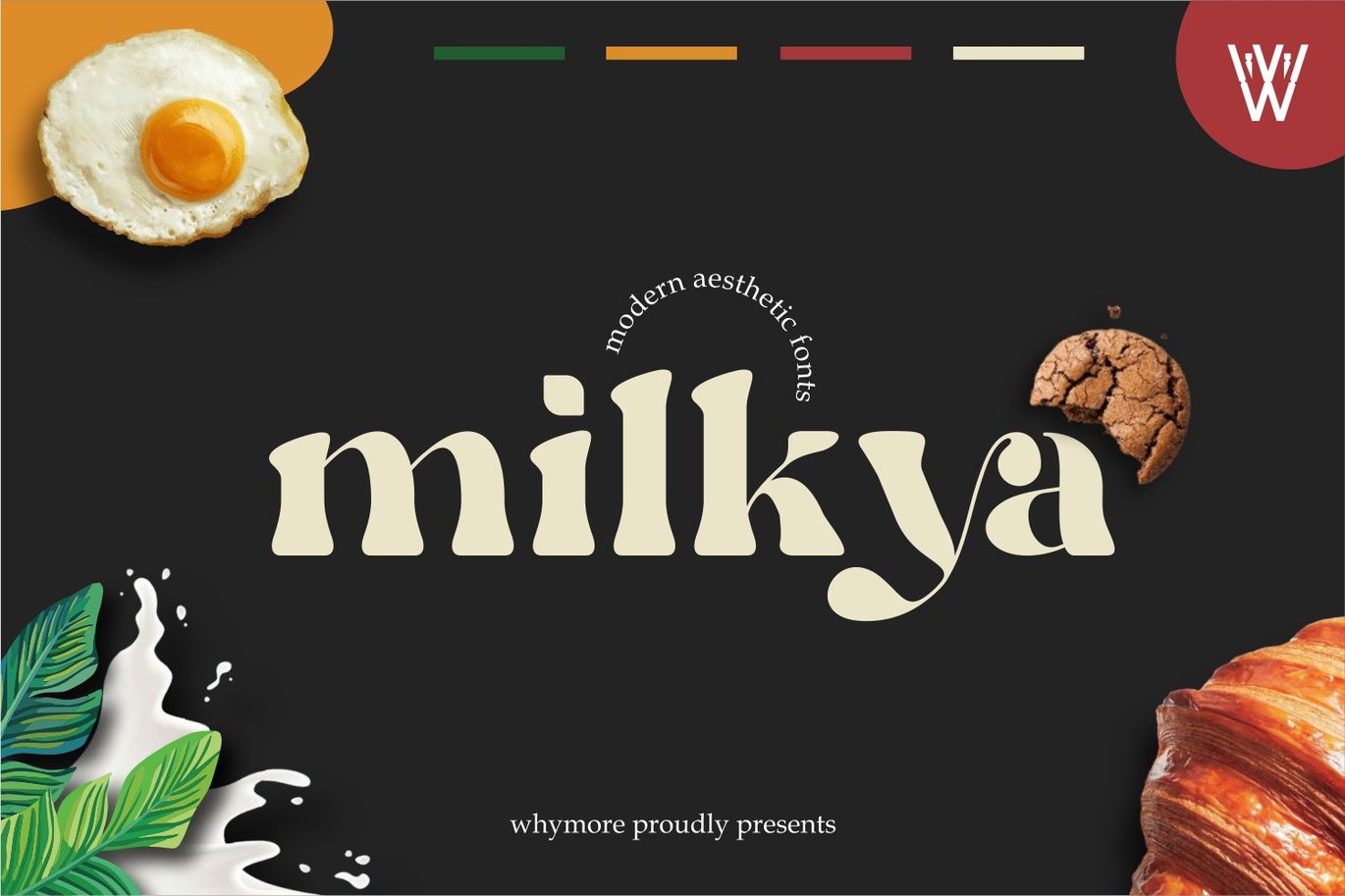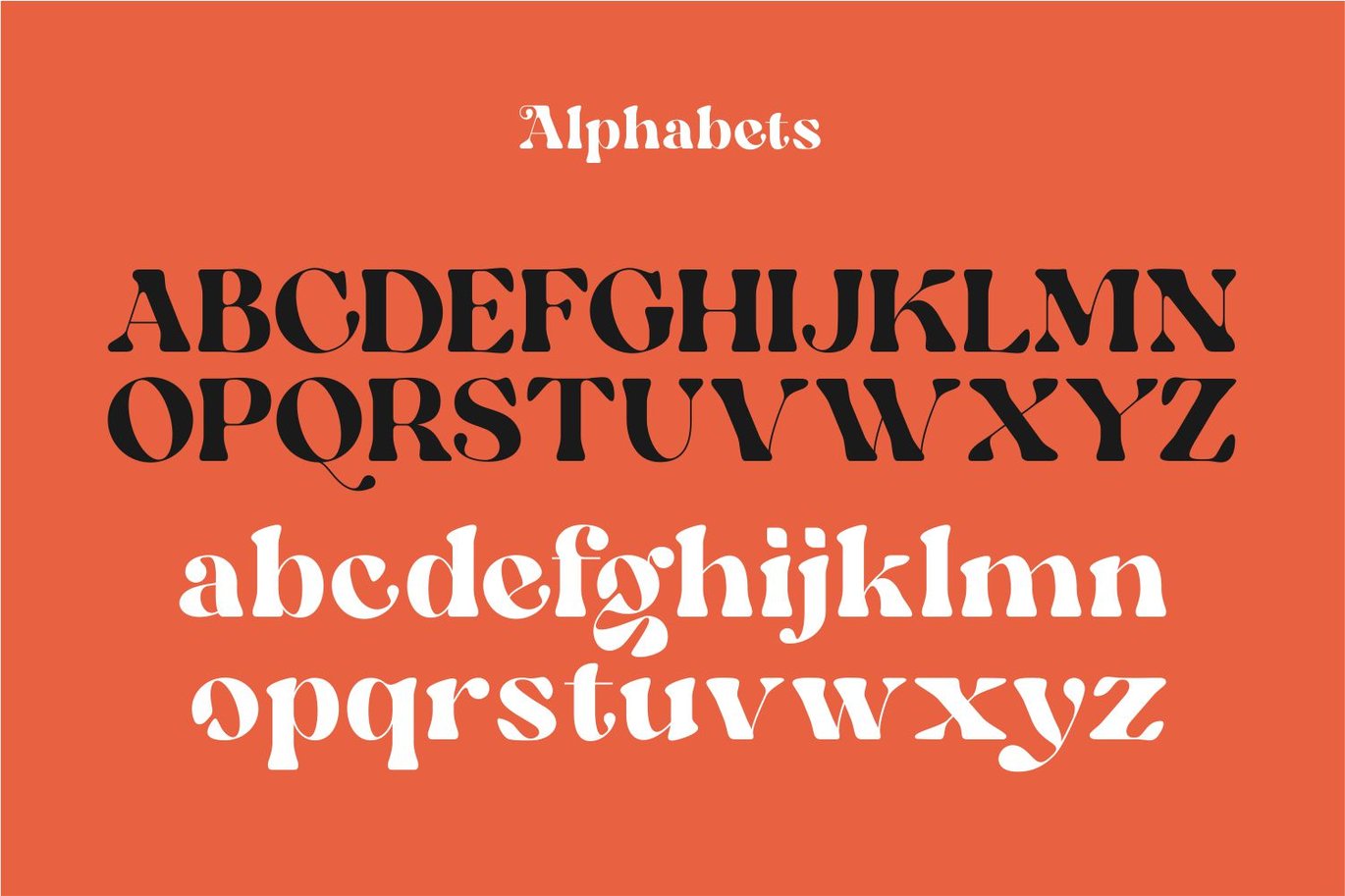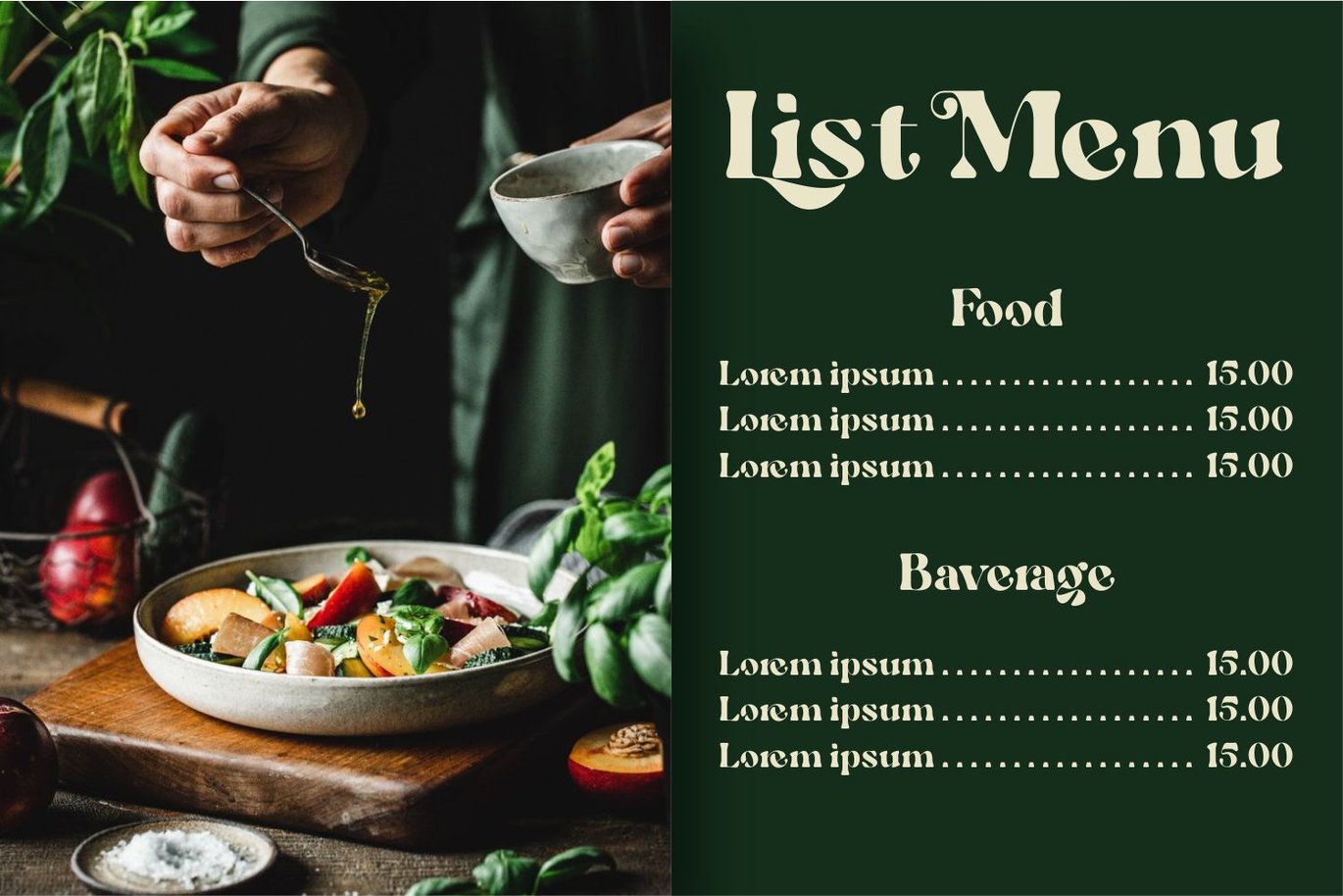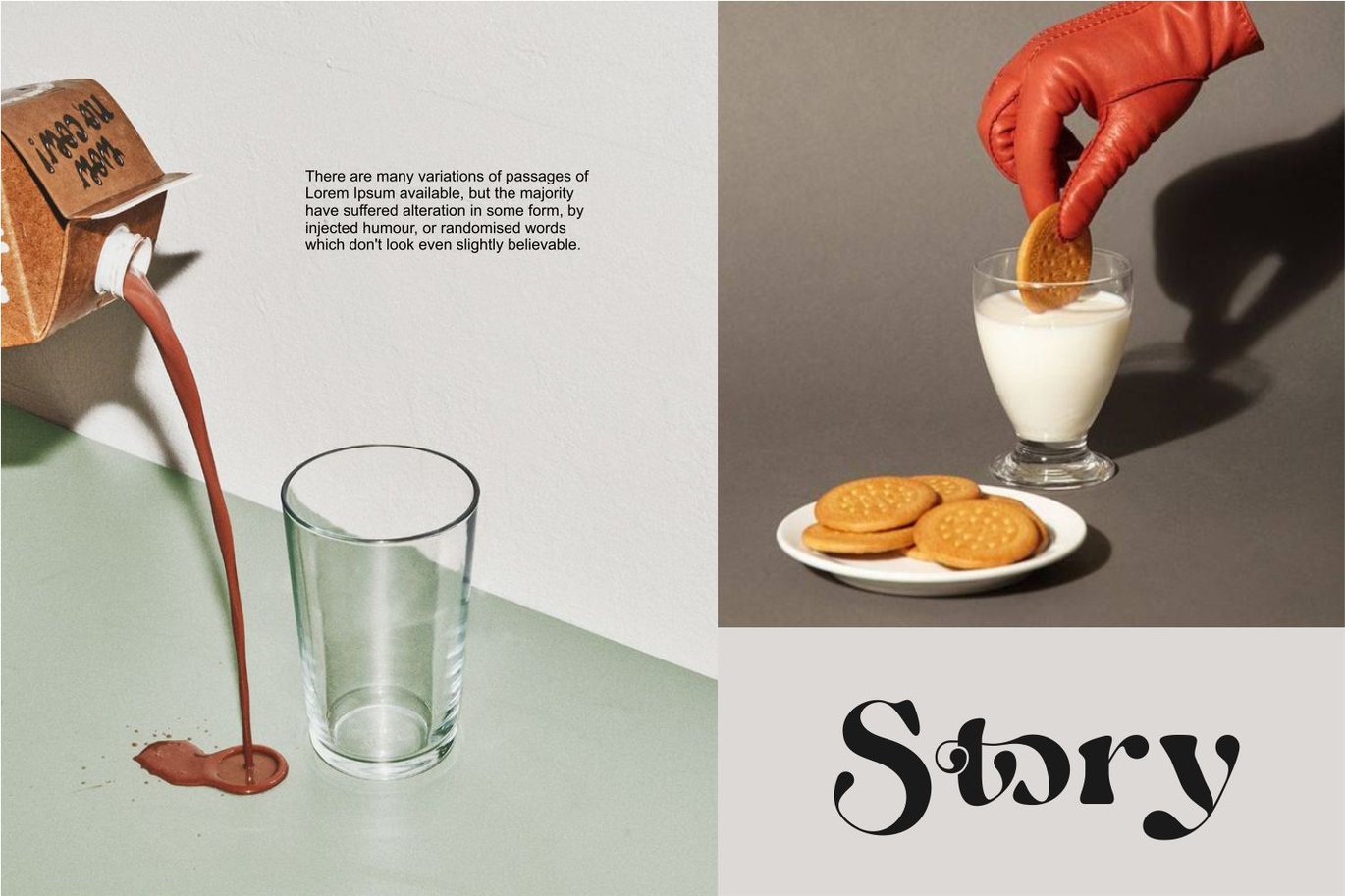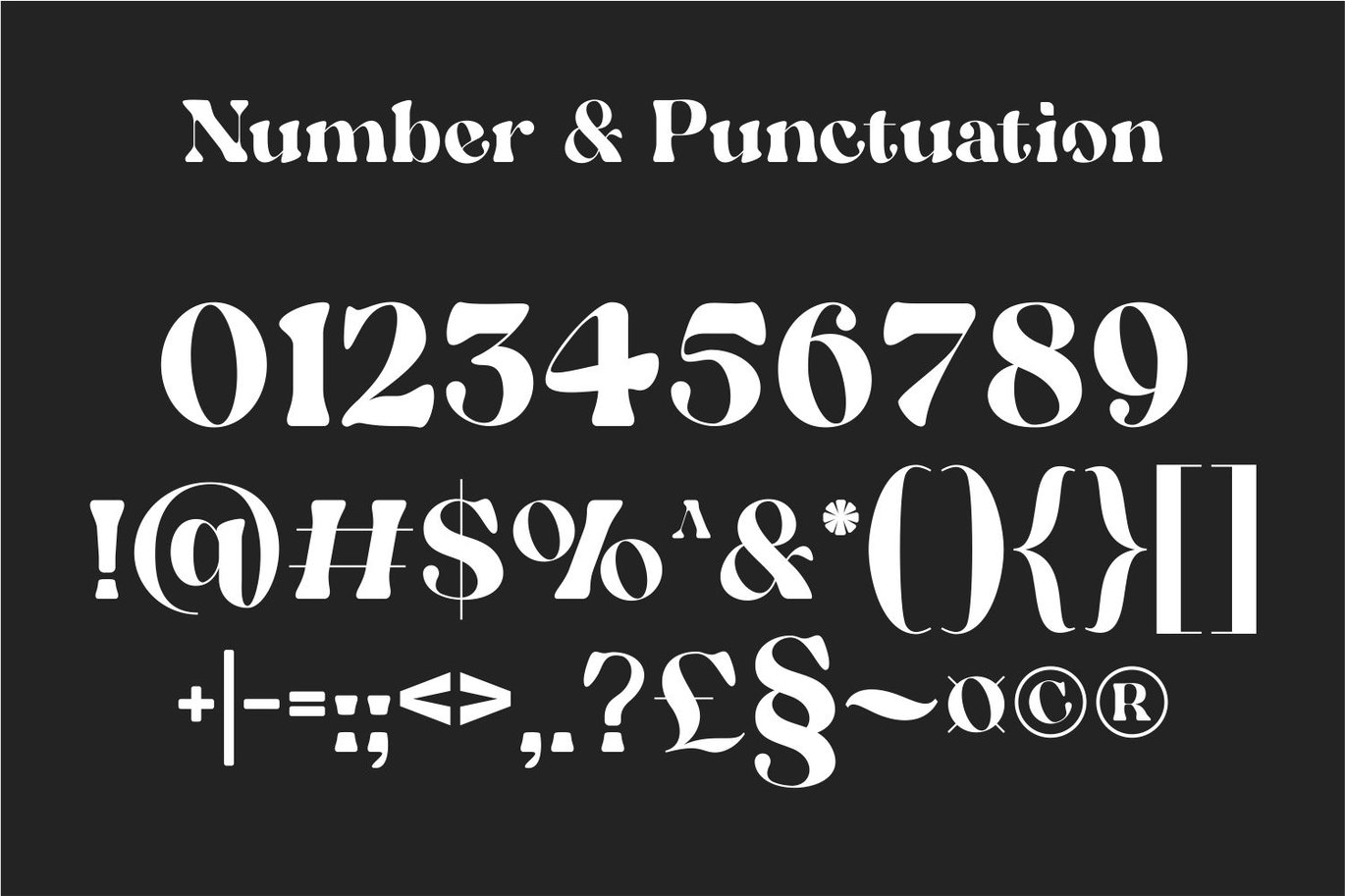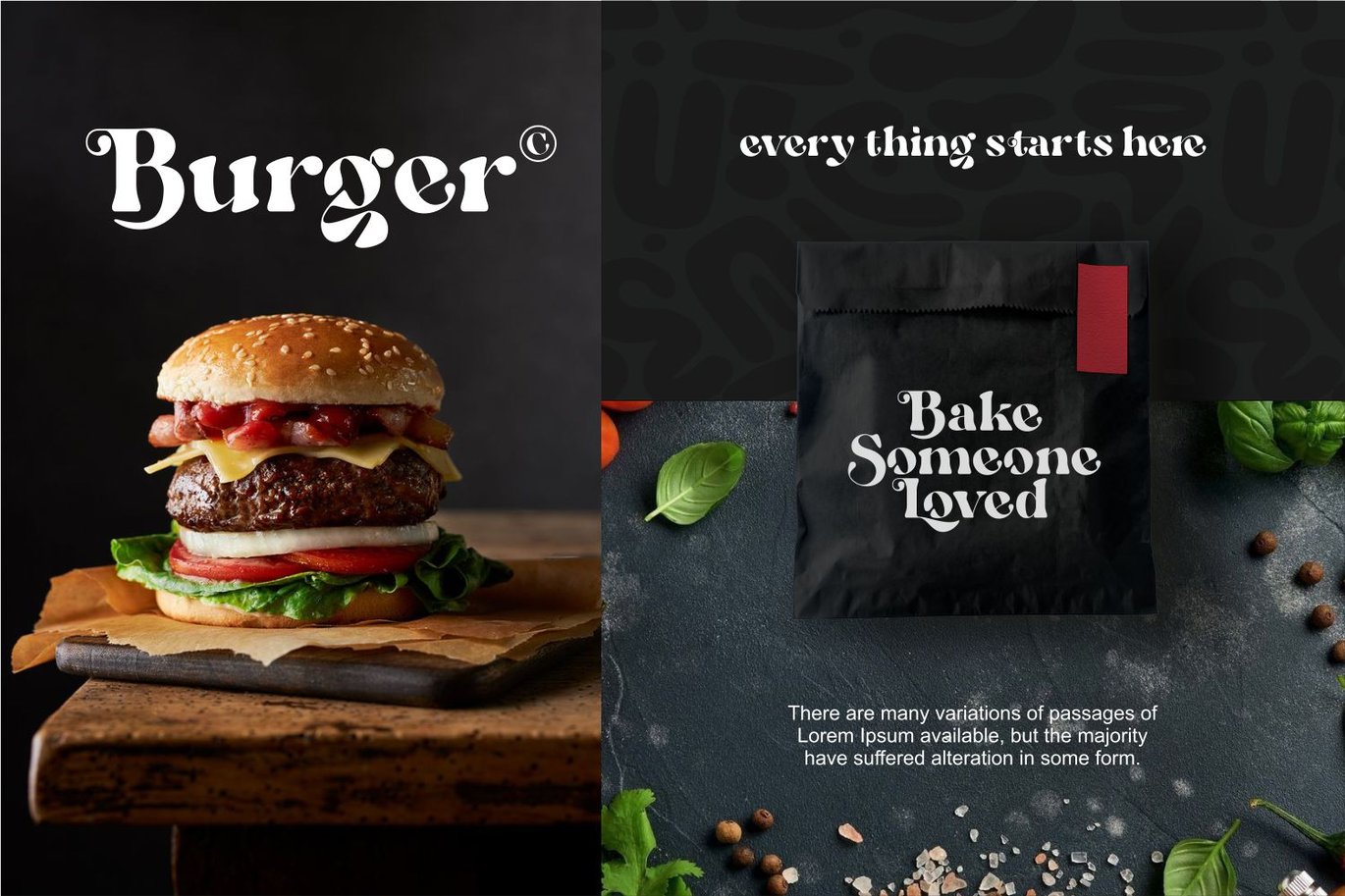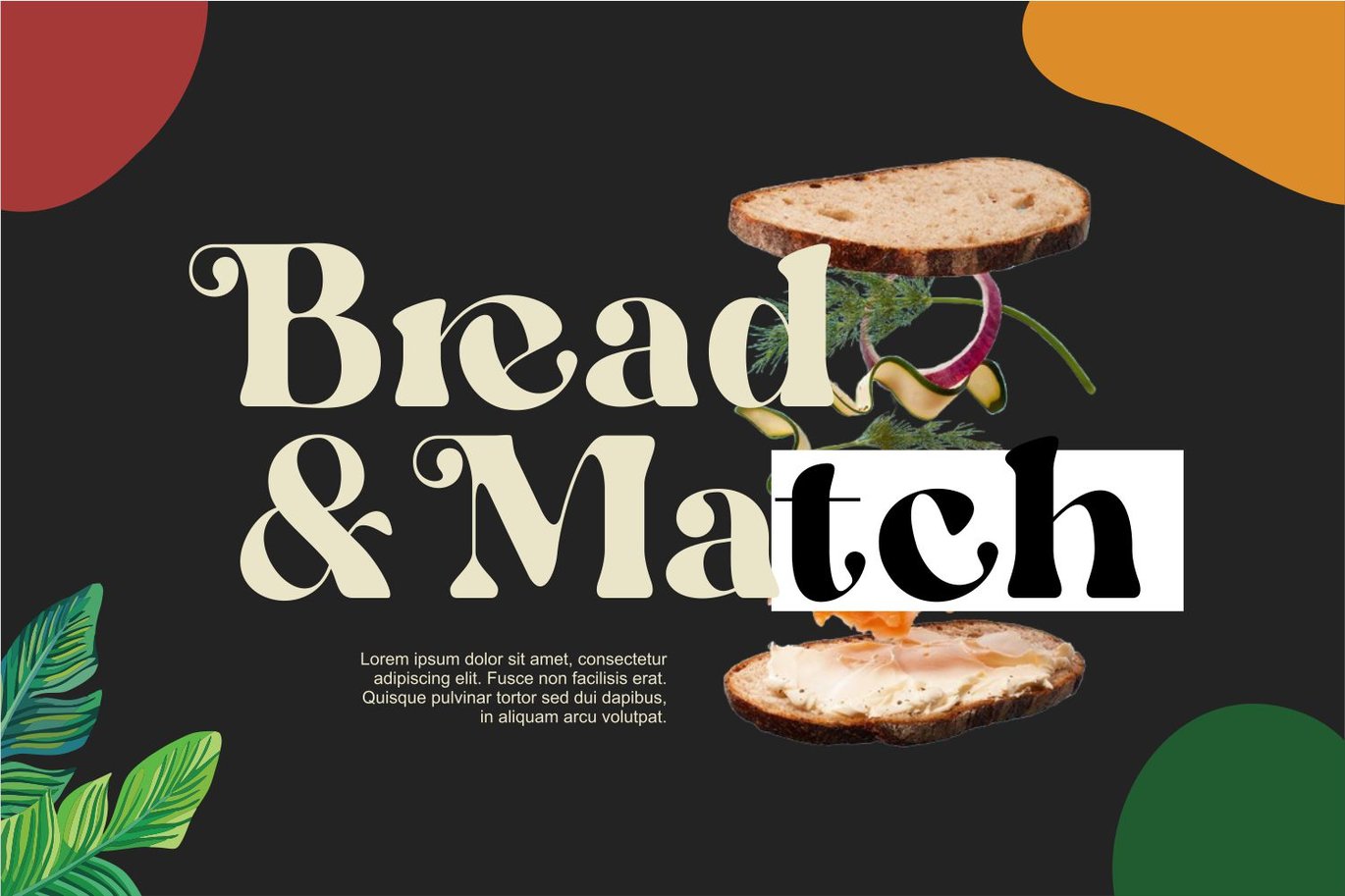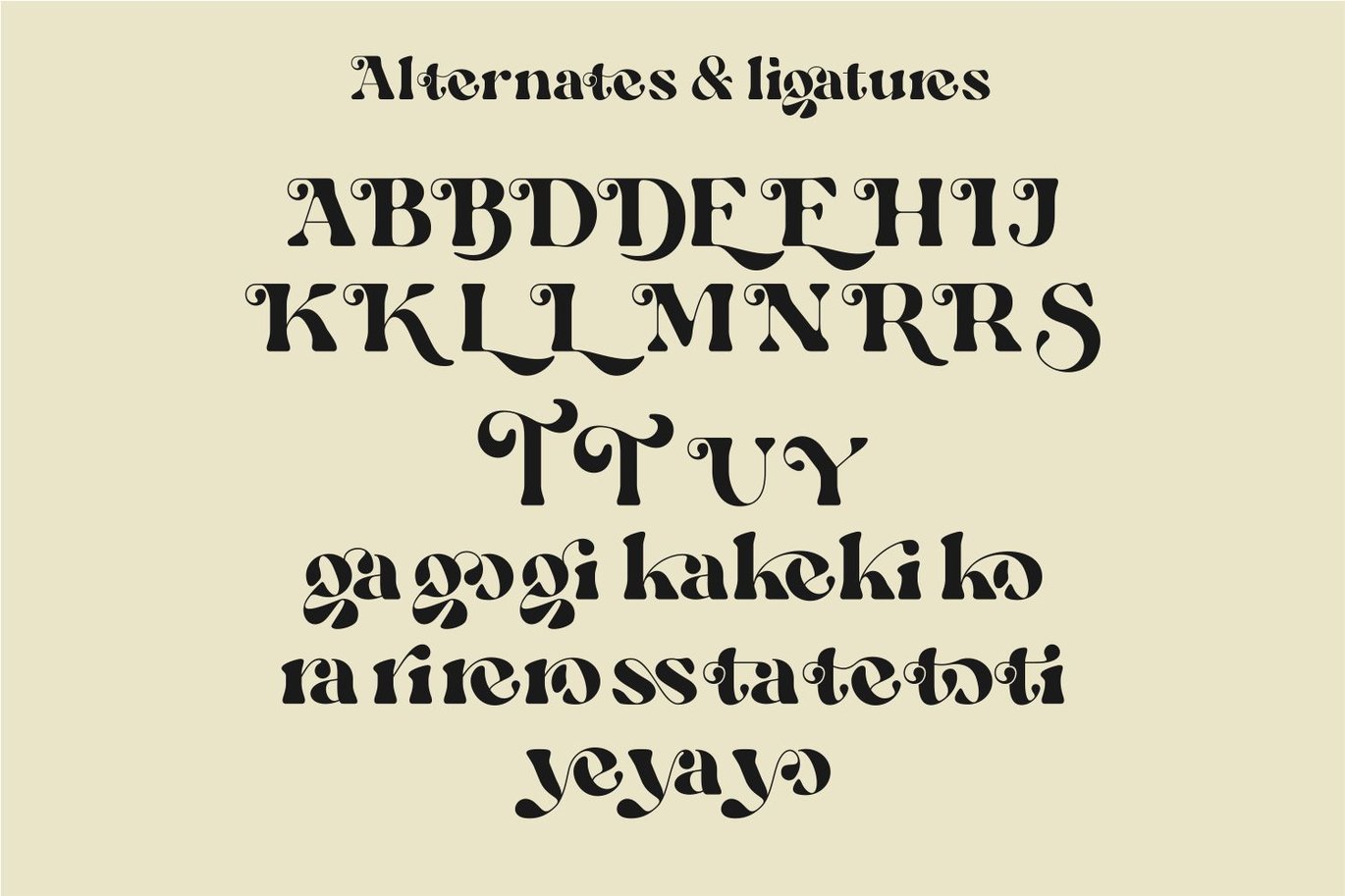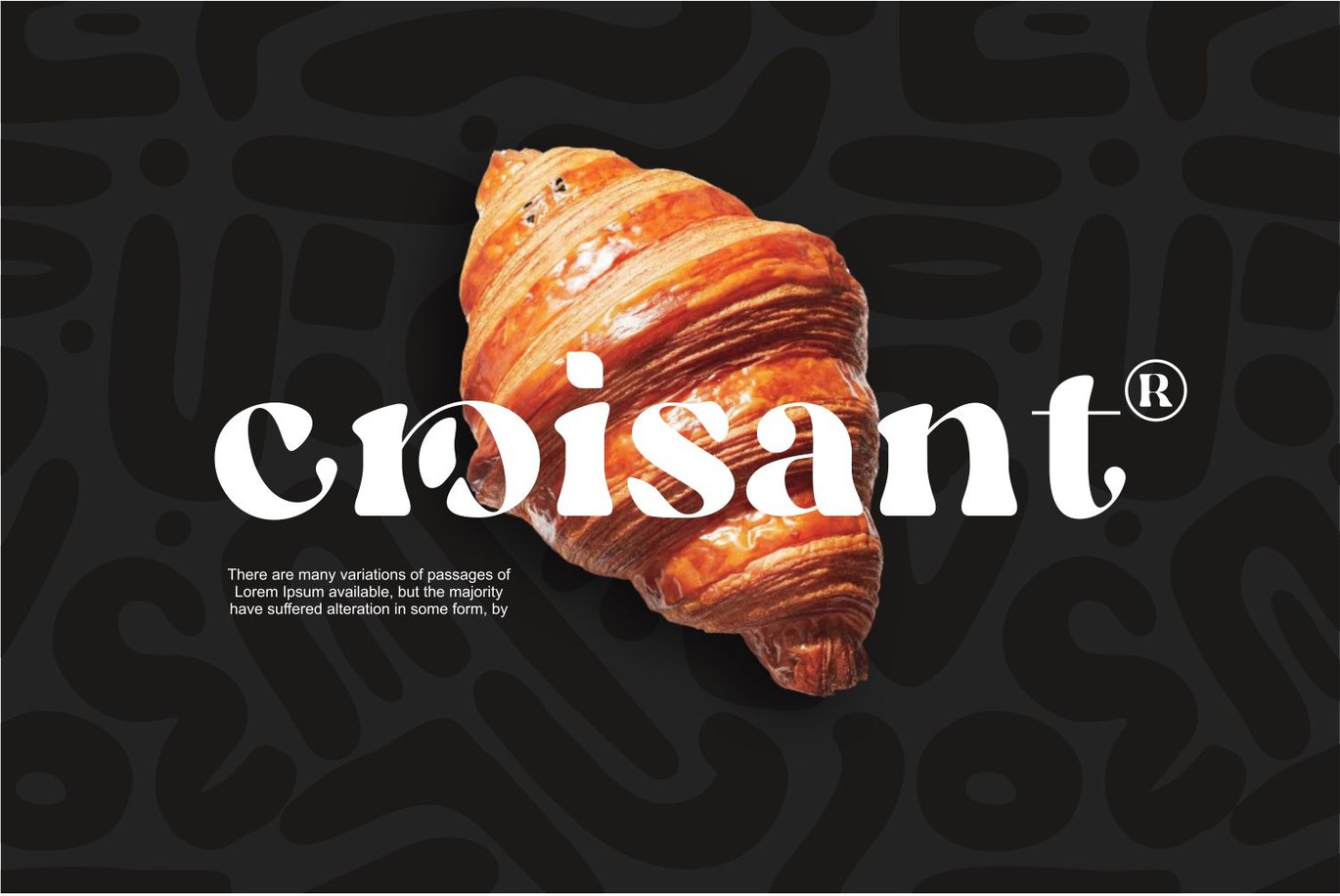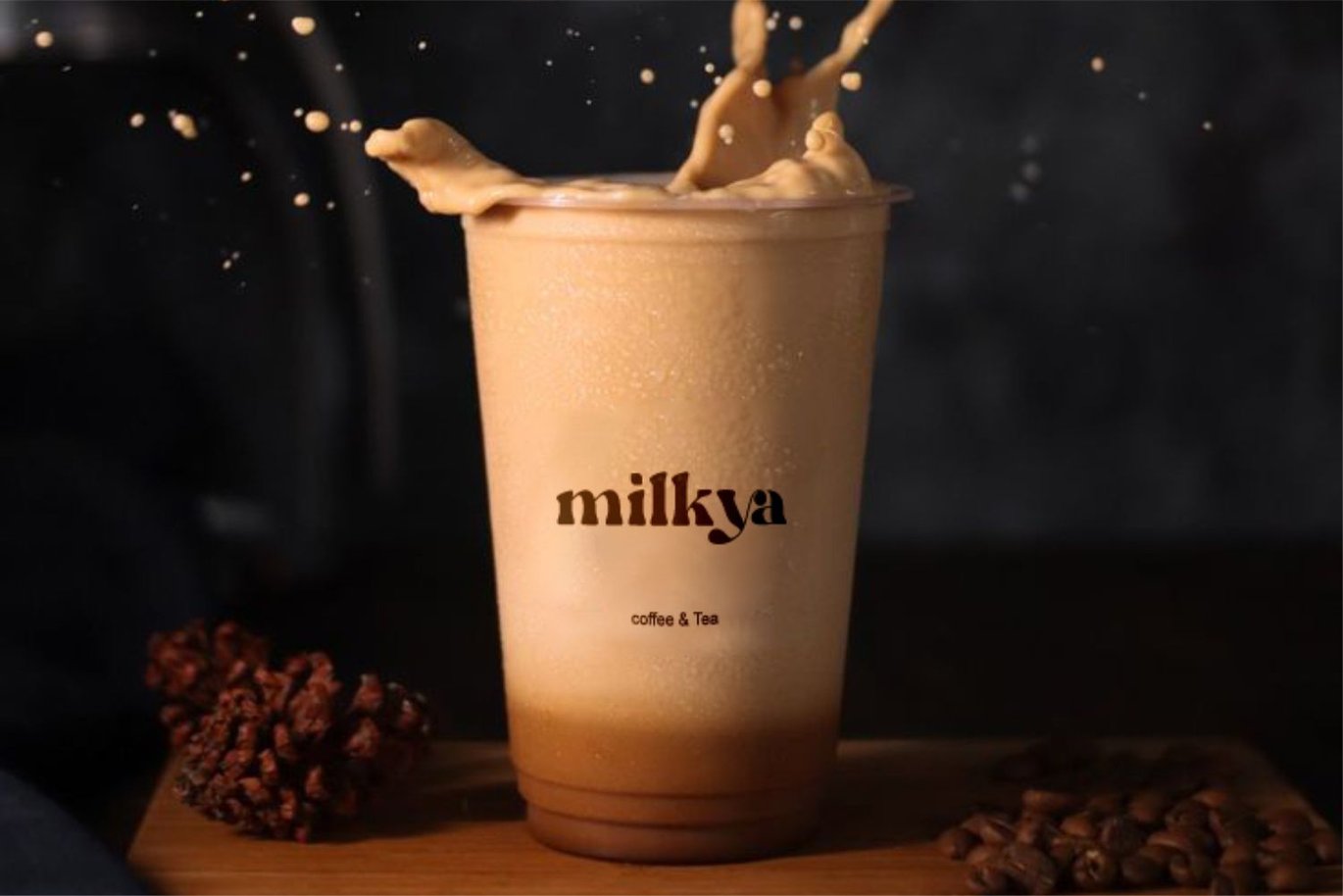
Milkya | Food Font
Milkya fonts are very flexible to use. can be in posters, invitations, greetings etc.
But here I emphasize its use is more suitable for food posters, menu lists, product promotions that are closely related to the food and beverage business.
Milkyais a typeface that is flexible and very flexible and is suitable for designs that emphasize aesthetics and beauty. It can display an elegant nature but with an interesting curved shape.
The versatile nature of the Milkya font makes it suitable for both headlines and body text, and its legibility ensures clear communication and can add eye-catching value to any customer who sees it. Milkya fonts is the perfect choice for those looking for a typeface that embodies timeless beauty and sophistication.
Explore your creativity with Milkya fonts.